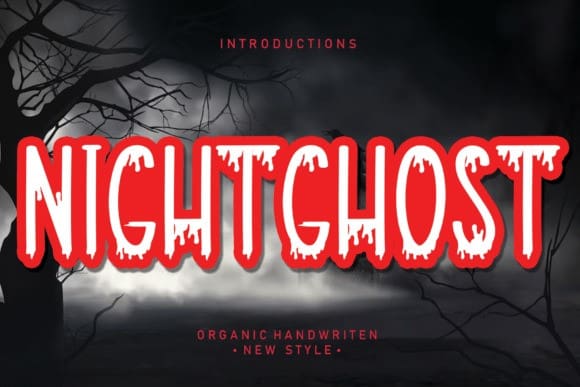
Nightghost Display Font
Nightghost Display Font, is a bold display font, perfect for wall displays, social media, posters, logos, advertisements, product packaging, product designs, labels, photography, watermarks, invitations, stationery, and any project that requires a bold touch!